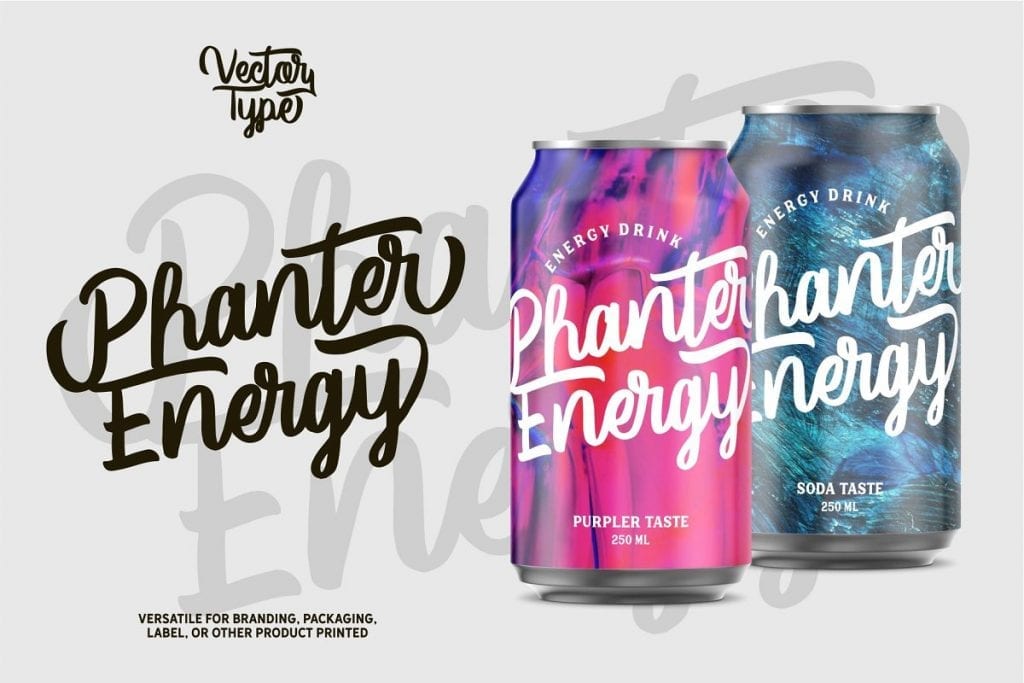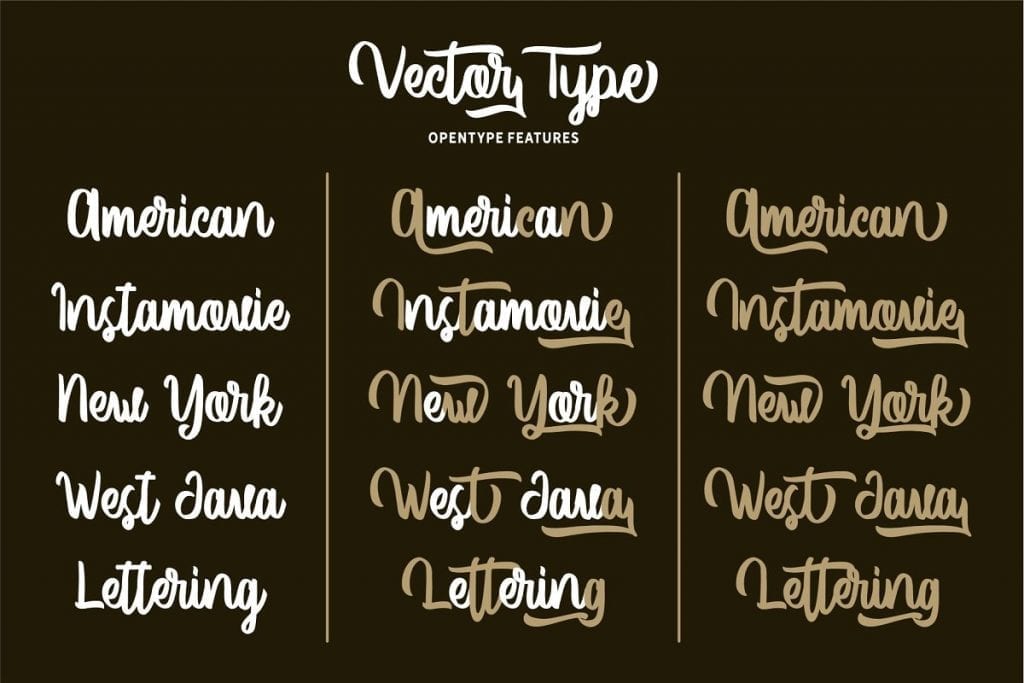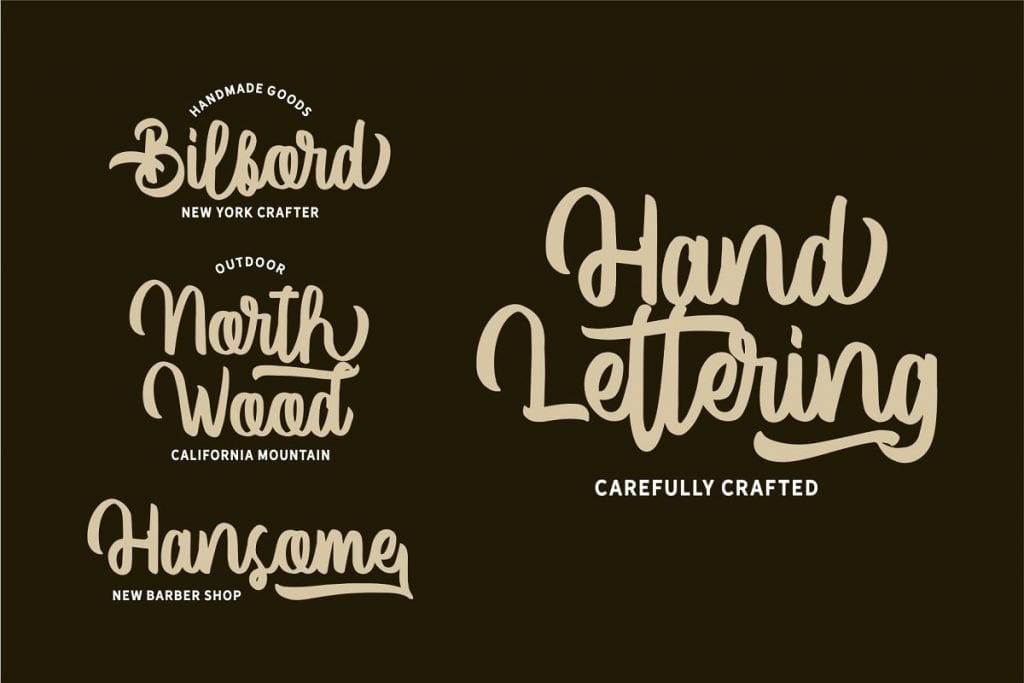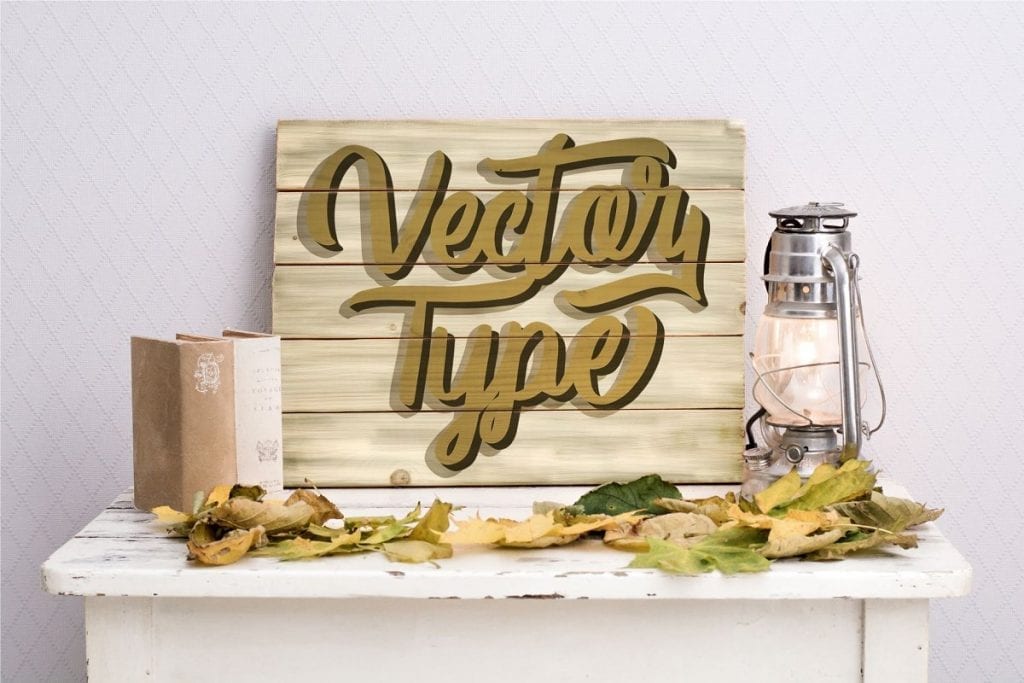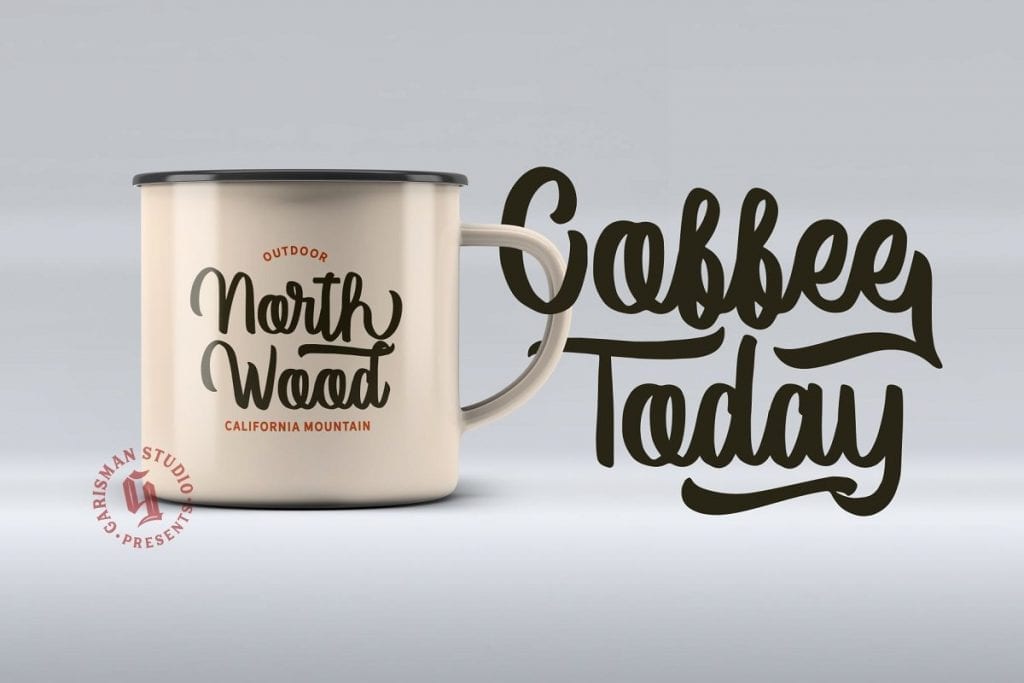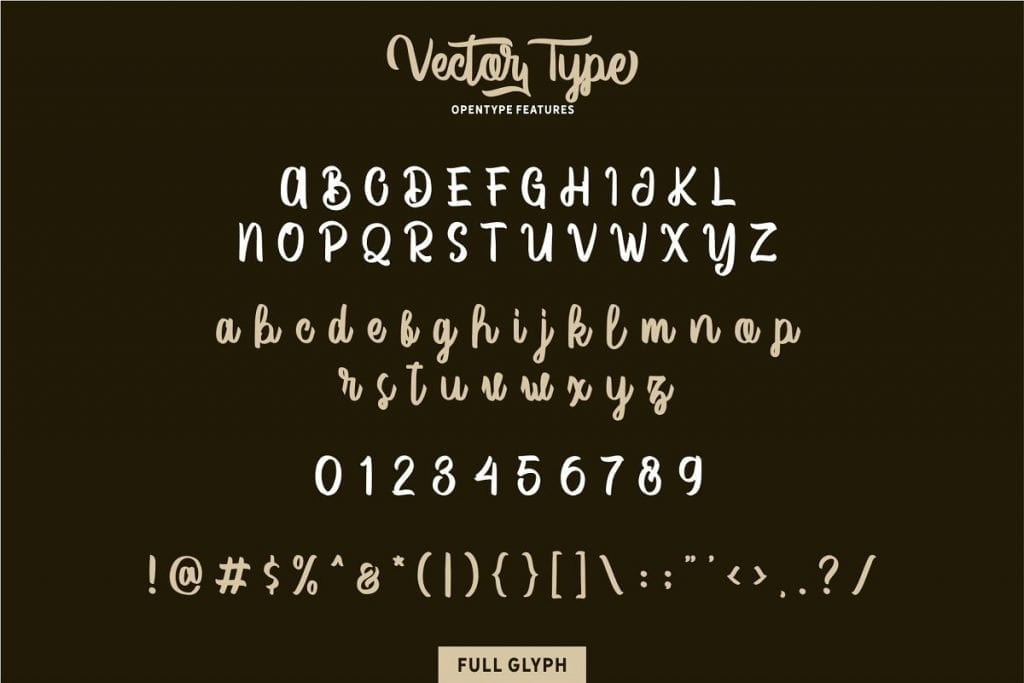
Garisman Std has released great script font – Vector Type.
This font is very suitable for design t-shirts, branding projects, wedding designs, social media posts, advertisements, product packaging, product, and logo. designs, labels, photography, watermark, invitation, stationery and any projects that need handwriting taste.